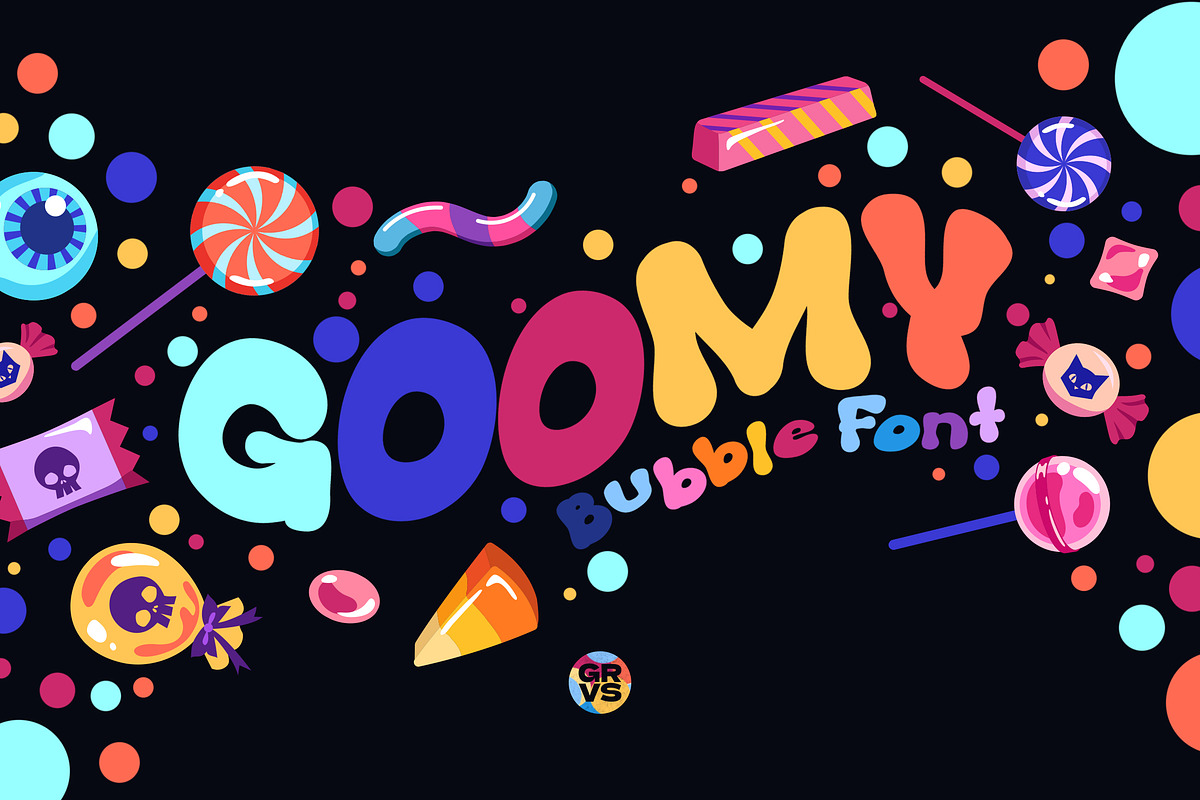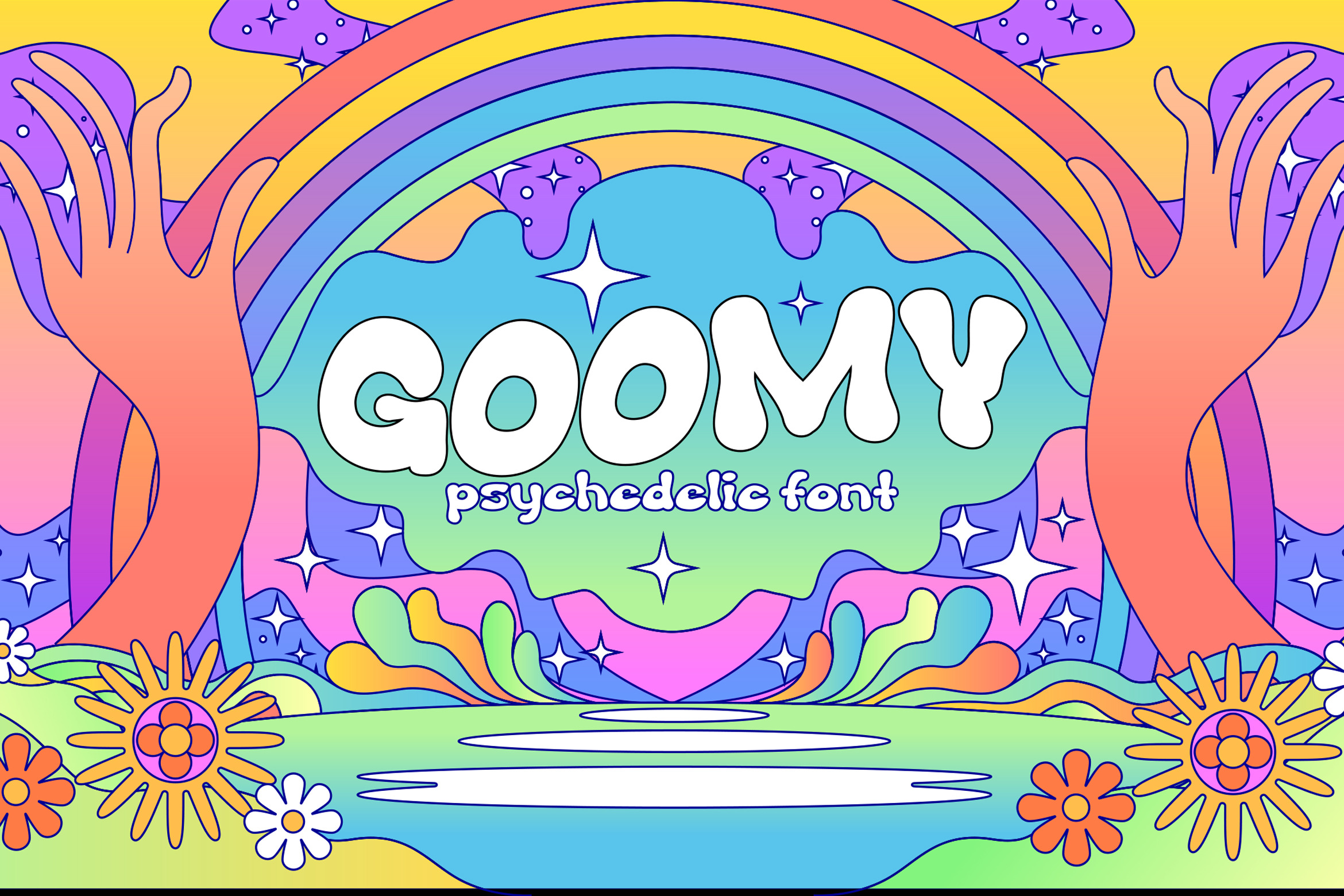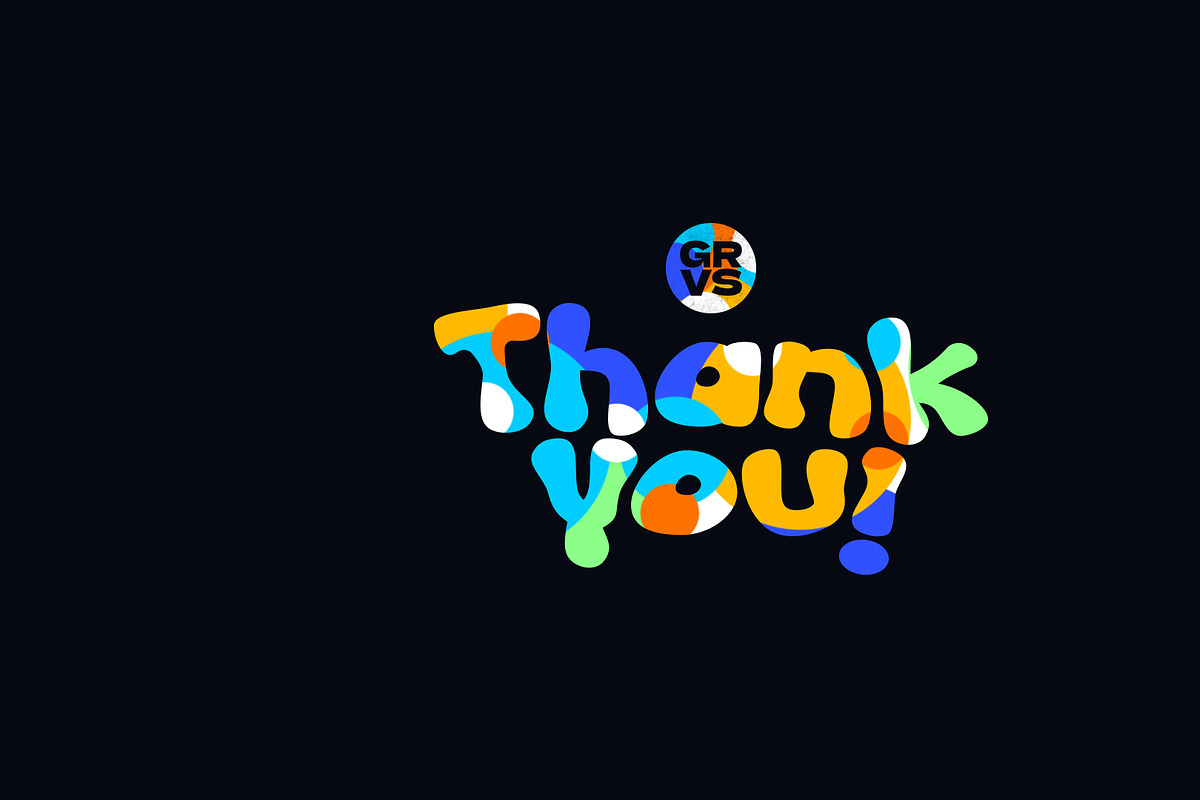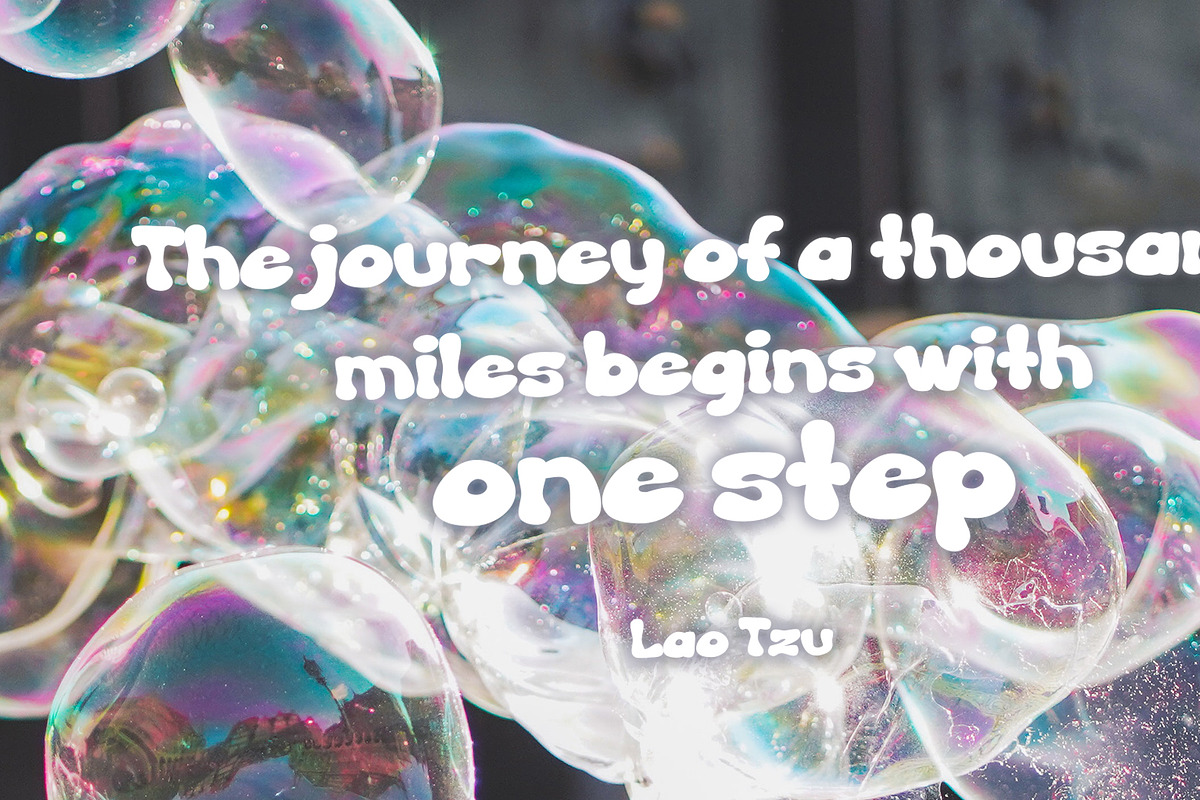
Goomy Psychedelic Font Display
GRVS Goomy Funny Bubble Psychedelic Font is our new item that is suitable for your team logo, or community logo with a Psychedelic, Funny, Kids, and Joy theme.